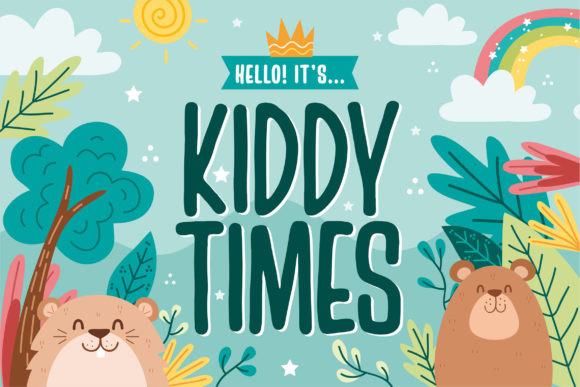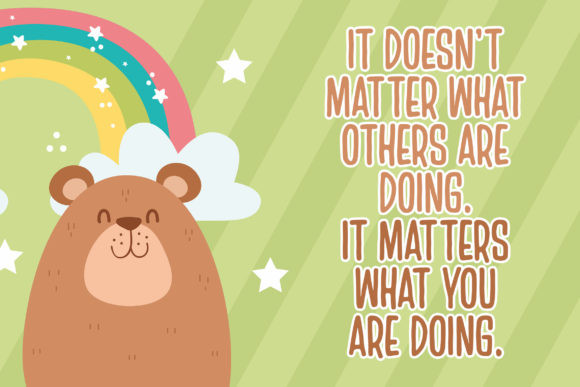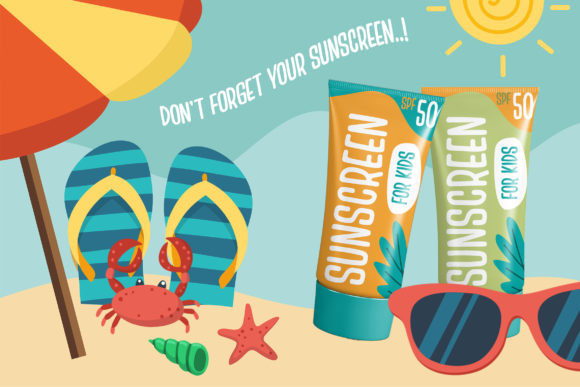
Kiddy Times Font
Kiddy Times is a sweet and colorful display font. Its friendly feel makes this font incredibly versatile, fitting a wide range of contexts. Add it to your creative ideas and notice how it makes them stand out!